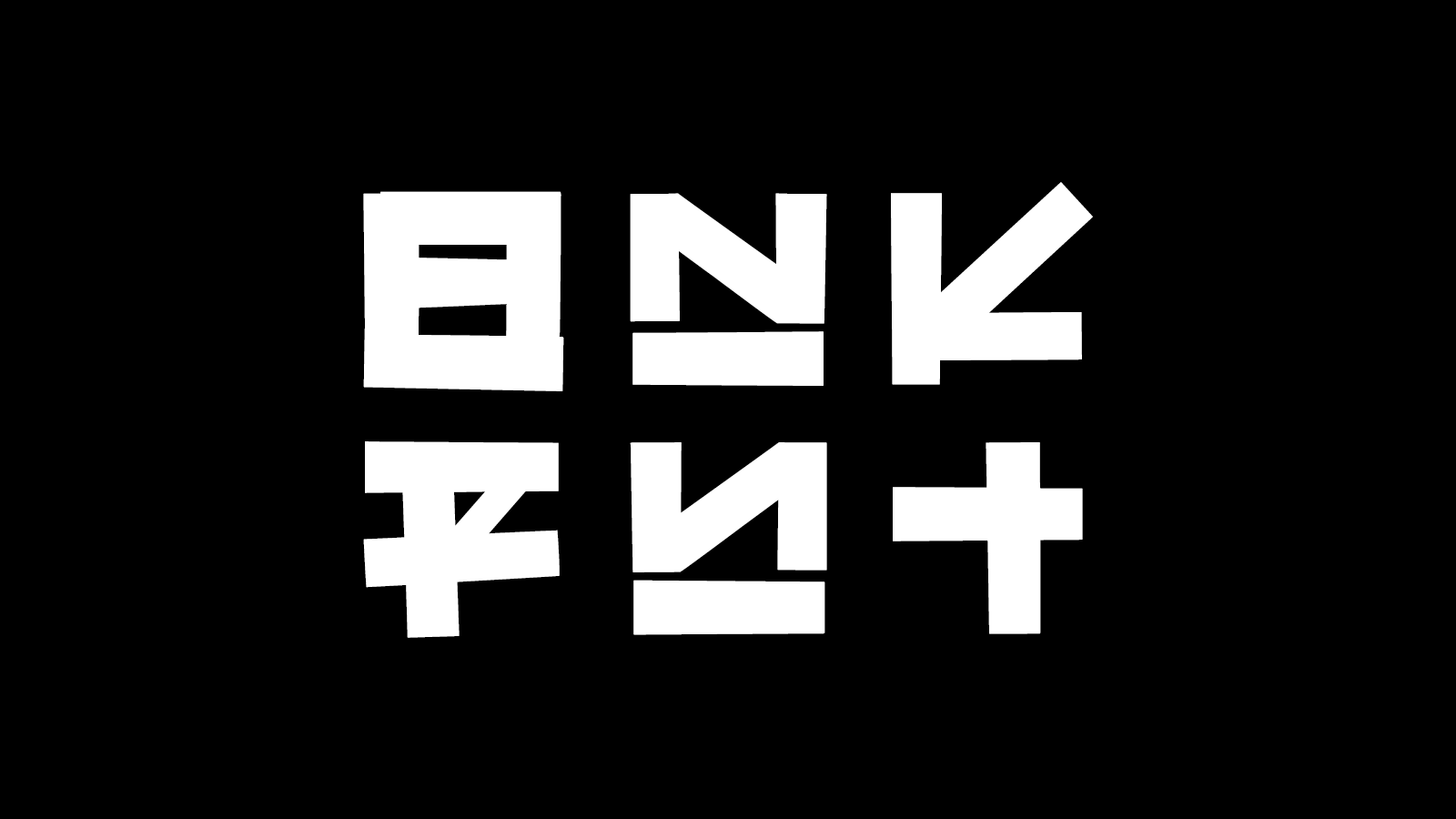
“BANKAY” – is a display font inspired by street calligraphy.
I wanted to embody the street “tags” of graffiti artists and stylize them, that they would become more bizarre and slightly incomprehensible. In particular, I was inspired by Japanese street art, so some of the letters can remotely resemble simplified hieroglyphs.
Also, using dry brushes, I created a second version of the font. The Japanese style influence on this work here, feel even more. Due to the large number of small parts, the second version exists only in the EPS format. The first version exists in formats TTF, OTF and EPS.
I stylized braces and brackets, that the user has more creative possibilities. In addition, you can easily change the horizontal direction of letters H, N, T and V using the upper case.